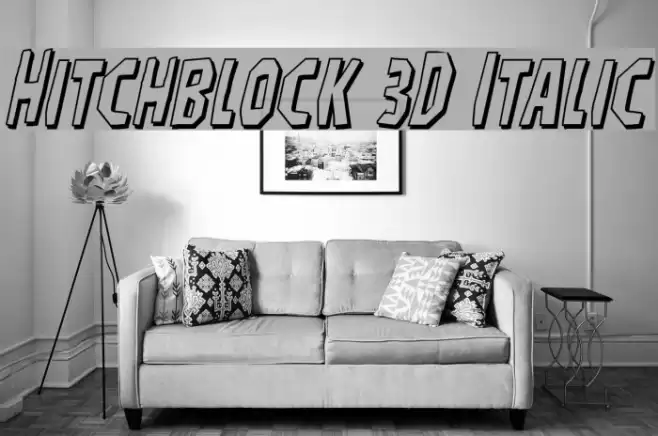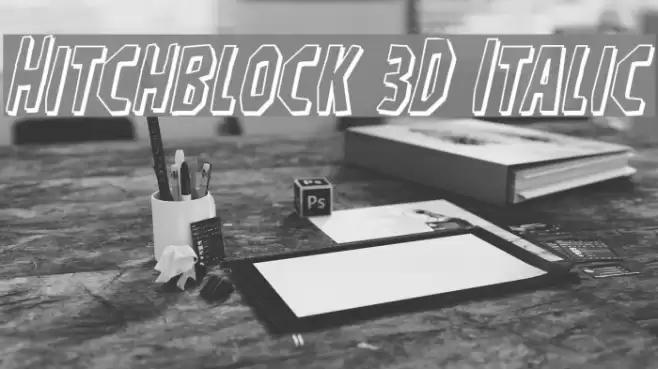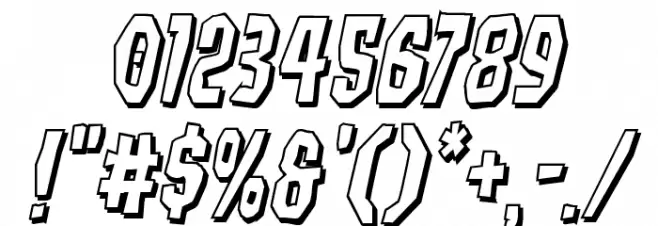
Hitchblock 3D Italic Font
Hitchblock 3D Italic Description
This font features a bold, three-dimensional design with an italicized slant, giving it a dynamic and impactful appearance. The characters are outlined, creating a sense of depth and movement. The uppercase letters are prominent and angular, while the lowercase letters maintain a consistent style, enhancing readability. Numbers and special characters are designed with the same bold and italicized characteristics, ensuring uniformity across all elements. The font's unique 3D effect makes it stand out, making it ideal for eye-catching designs.
A bold, 3D italic font with outlined characters and a dynamic style from Uncategorized fonts.
- Proposed Projects: Ideal for posters, logos, video game graphics, and any project requiring a bold, attention-grabbing font.